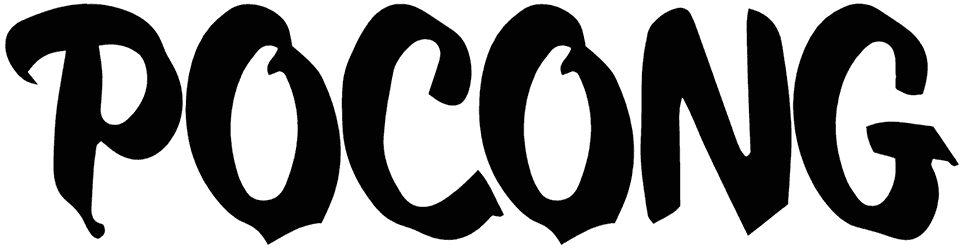
Pocong Font
Pocong is great for photo posters because it’s crisp and attractive. There is no unique pattern here, but it looks unusual and will never go out of style.
Round letters with decorations sticking out of each have made this horror font create a mood of gentle fear that looks very good in children’s projects. For this reason, whenever you want your text not to have too much visual load, it’s great for creating a minimal feeling in posters and advertisements.